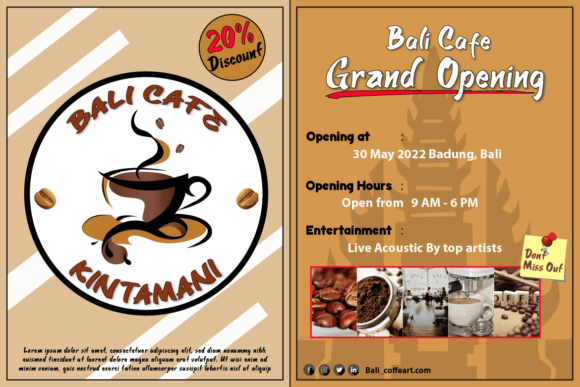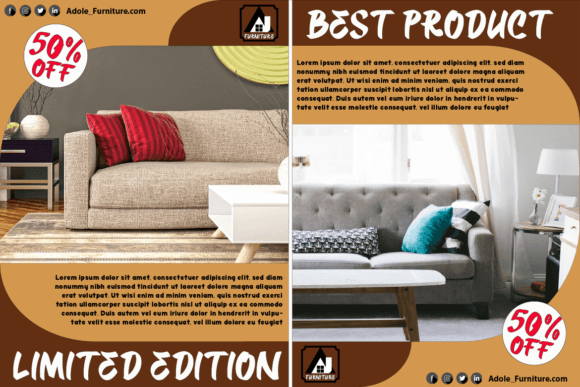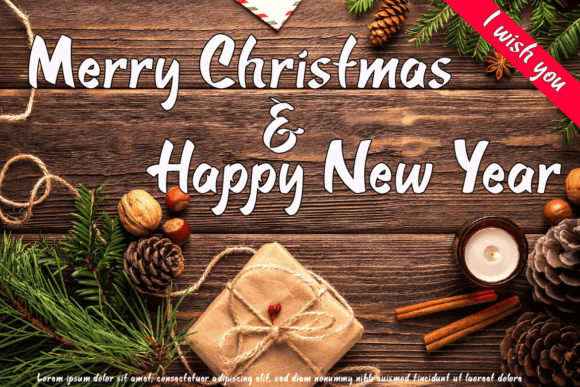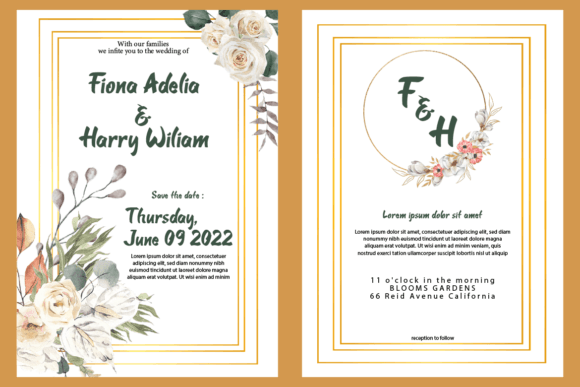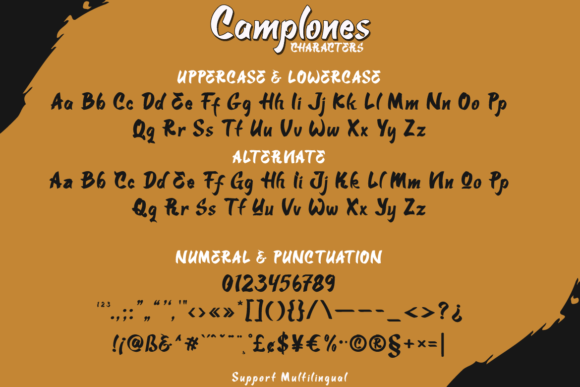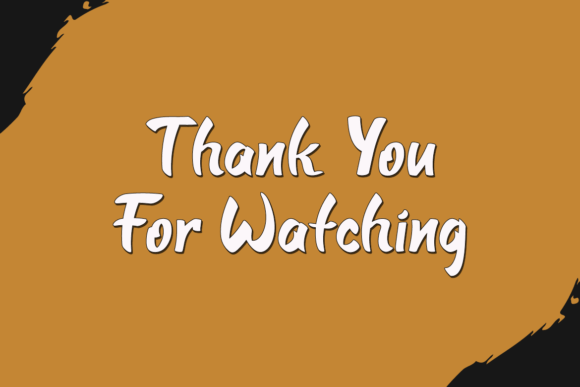
Introducing Camplones Font: A Handwritten Masterpiece
Are you tired of using generic fonts that lack personality and flair? Look no further than Camplones Font, a beautiful handwritten font that adds a touch of elegance and sophistication to any design project. In this article, we’ll take a closer look at what makes Camplones Font so special and why it’s a must-have for designers and crafters.
The Art of Handwritten Fonts
Handwritten fonts have a way of capturing the essence of human expression and emotion. They convey a sense of personal touch and uniqueness that is hard to replicate with generic fonts. Camplones Font takes this concept to the next level by accentuating the style and curve of the hand when inking the ink on the paper. Each character is carefully crafted to perfection, resulting in a font that looks stunning when applied in a sentence.
The Unique Features of Camplones Font
So, what sets Camplones Font apart from other handwritten fonts? Here are just a few of its unique features:
- Hand-crafted with love: Camplones Font is specially shaped and made to evoke the feeling of a hand that lives in the character of the letters. This attention to detail gives the font a tremendous value when used in your designs.
- Elegant and sophisticated: Camplones Font is designed to make your products look more elegant and increase their selling value. Whether you’re creating templates, game fonts, wedding invitations, or sales products, this font is sure to impress.
- PUA encoded: Camplones Font is PUA encoded, which means you can access all of the glyphs and swashes with ease. This makes it easy to customize your designs and add a personal touch.
Camplones Font is a versatile font that can be used in a variety of design projects. Here are just a few examples of how designers and crafters can use this font:
- Wedding invitations: Add a touch of elegance and romance to your wedding invitations with Camplones Font.
- Sales products: Increase the selling value of your products with a beautiful and sophisticated font.
- Game fonts: Use Camplones Font to create unique and engaging game titles, menus, and dialogue.
- Templates: Add a personal touch to your templates with Camplones Font, making them stand out from the crowd.
Why Choose Camplones Font?
With so many fonts available, why choose Camplones Font? Here are just a few reasons:
- Unique and exclusive: Camplones Font is a one-of-a-kind font that will set your designs apart from others.
- High-quality design: Each character is carefully crafted to perfection, ensuring a high-quality design that will impress.
- Easy to use: Camplones Font is PUA encoded, making it easy to access all of the glyphs and swashes.